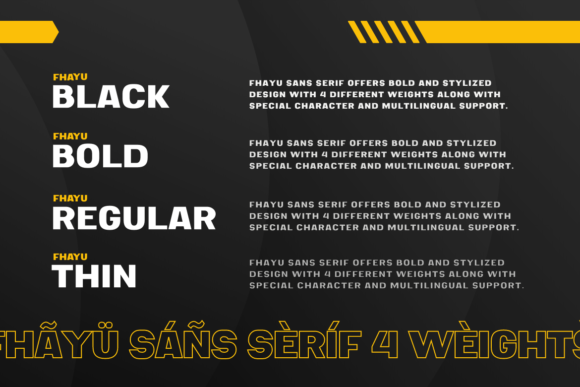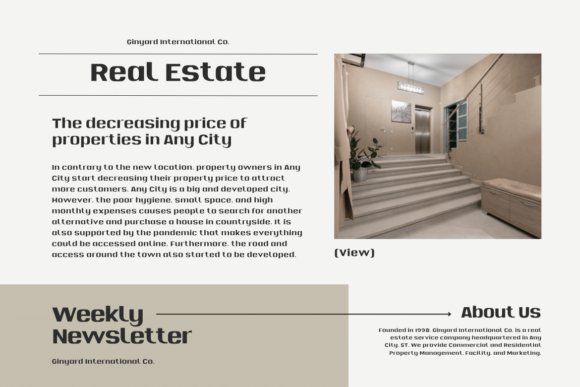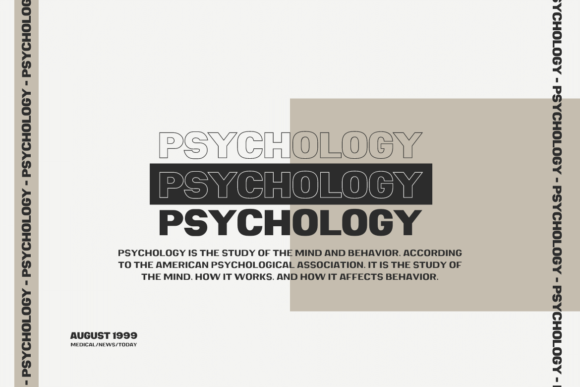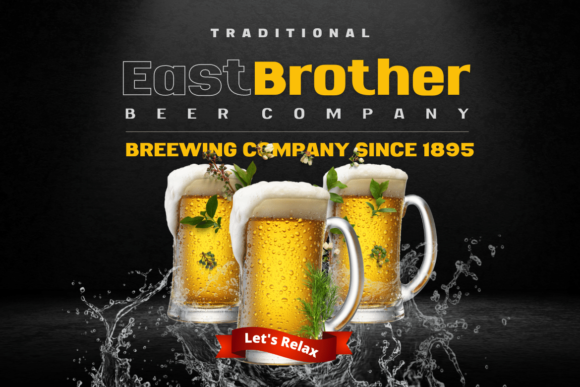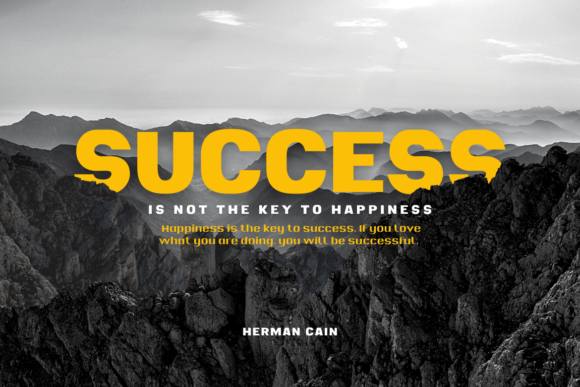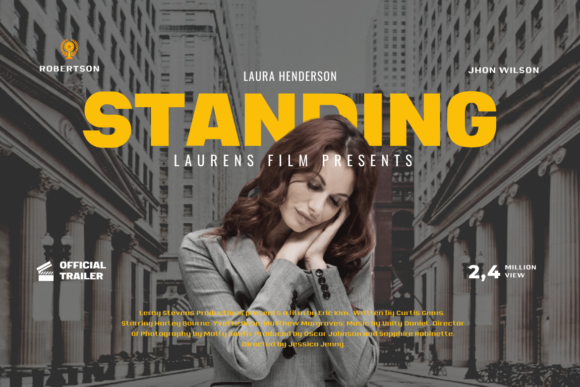
Fhayu Font: Elevate Your Designs with a Cool and Thick Lettered Sans Serif Font
In the world of design, fonts play a crucial role in conveying messages, expressing emotions, and creating visual identities. For designers and crafters, having access to a diverse library of high-quality fonts is essential to stay ahead of the curve. One such font that has been making waves in the design community is Fhayu Font. In this article, we’ll dive into the features, benefits, and uses of Fhayu Font, and explore why it’s an incredible asset to your fonts’ library.
What is Fhayu Font?
Fhayu Font is a cool and thick lettered sans serif font that has been designed to make a statement. Its bold and chunky letters are perfect for creating eye-catching designs that demand attention. Whether you’re working on a branding project, a social media campaign, or a craft project, Fhayu Font is an excellent choice to add some personality to your work.
Key Features of Fhayu Font
- Bold and Chunky Letters: Fhayu Font features thick and sturdy letters that are perfect for creating bold and impactful designs.
- Sans Serif Design: The font’s sans serif design gives it a clean and modern look that’s perfect for a wide range of applications.
- High Versatility: Fhayu Font can be used for various design projects, from branding and advertising to crafting and DIY projects.
- Easy to Read: Despite its bold design, Fhayu Font is easy to read, making it perfect for use in body text, headings, and titles.
Benefits of Using Fhayu Font
So, why should you consider adding Fhayu Font to your fonts’ library? Here are some benefits of using this amazing font:
- Elevate Your Designs: Fhayu Font has the potential to elevate any creation, adding a touch of personality and style to your designs.
- Save Time: With Fhayu Font, you can create professional-looking designs in no time, thanks to its bold and eye-catching design.
- Stand Out from the Crowd: Fhayu Font is a unique and distinctive font that will help your designs stand out from the crowd.
- Perfect for Various Applications: Whether you’re working on a digital project or a print project, Fhayu Font is perfect for a wide range of applications.
Use Cases for Fhayu Font
Fhayu Font is an incredibly versatile font that can be used for various design projects, including:
- Branding and Logo Design: Use Fhayu Font to create bold and memorable logos that make a statement.
- Social Media Graphics: Fhayu Font is perfect for creating eye-catching social media graphics, such as Facebook posts, Instagram stories, and Twitter headers.
- Advertising and Marketing Materials: Use Fhayu Font to create bold and attention-grabbing ads, flyers, and brochures.
- Crafting and DIY Projects: Fhayu Font is perfect for crafters and DIY enthusiasts who want to add a personal touch to their projects.